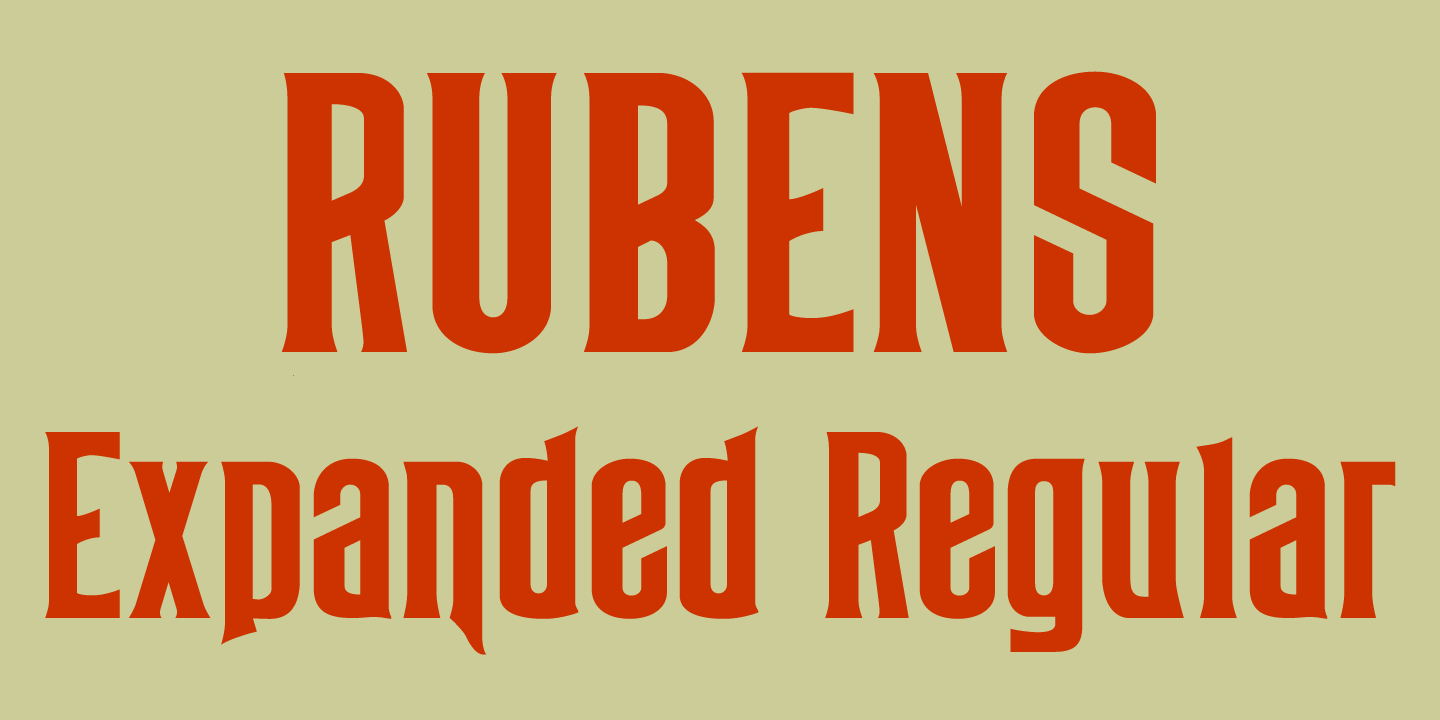
The Rubens Expanded Regular Font is an excellent choice for designs that aim for a bold, impactful, and distinctly retro aesthetic, reminiscent of classic signage and vintage advertising. Imagine it commanding attention on a large-scale billboard, adding a powerful visual presence to a brand's logo, or bringing a robust, old-school feel to event posters. It's also perfectly suited for energetic promotions, merchandise designs, industrial branding, and any project where you want to convey a sense of strength, reliability, and a timeless, confident statement. Its often thick, sturdy forms, and assertive presence make it ideal for conveying authority and a memorable message.
What makes the Rubens Expanded Regular Font so exciting is its ability to instantly evoke a sense of nostalgic power and honest craftsmanship. It frequently features strong, expanded letterforms that might have subtle serifs or a slightly condensed appearance, reminiscent of old-school print advertising or hand-painted signs. This font has a powerful and self-assured personality that can instantly elevate your design, making it feel both established and remarkably energetic. It’s designed to capture attention with its distinctive charm, ensuring your message is not just seen, but resonates with a sense of enduring strength and authentic character.
The Rubens Expanded Regular Font family typically includes a range of weights, from a solid regular to a heavy, commanding bold, providing versatile options for different levels of emphasis. Some families might also offer stylistic alternates or unique ligatures that enhance its traditional or robust aesthetic. These variations empower designers to create a truly commanding and memorable display, ensuring the Rubens Expanded Regular Font Free Download can adapt to a wide array of projects while maintaining its signature, timeless charm.